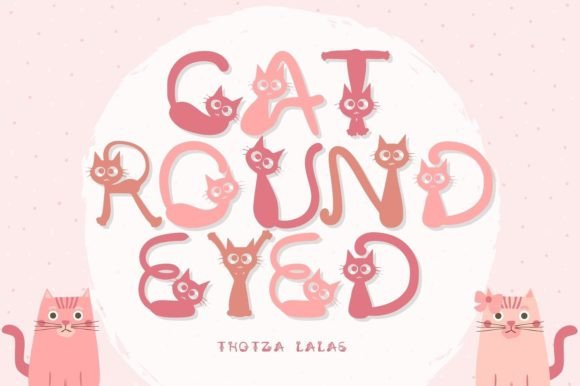
Welcome to the world of Cat Round Eyed Font – the Best Font For Cat Memes! This decorative font is a must-have for any cat lover who wants to add a touch of cuteness and fanciness to their projects. Created by NN-Font Store, this adorable font is the perfect choice for various purposes, from invitation embellishments to wall art and beverage logos.
Cat Round Eyed Font is a versatile decorative font that can easily elevate any project. Its fancy and cute design will make your work stand out and capture the attention of your audience. This font is perfect for creating memorable and eye-catching designs that will leave a lasting impression.
Whether you are a designer, artist, or simply a cat lover, Cat Round Eyed Font is the perfect choice for you. Its unique and playful design will add a touch of personality and charm to your projects. You can use it to create seamless patterns, social media posts, greeting cards, product packaging, and much more.
With its adorable and versatile design, Cat Round Eyed Font is the perfect choice for creating cat-themed projects. It is the best font for cat memes, making it the perfect choice for social media posts and viral content. With its eye-catching design, you can easily create fun and engaging content that will capture the hearts of cat lovers everywhere.
In conclusion, if you are looking for a decorative font that is both adorable and versatile, look no further than Cat Round Eyed Font. Created by NN-Font Store, this font is the perfect choice for any cat lover who wants to add a touch of cuteness and fanciness to their projects. So why wait? Download Cat Round Eyed Font today and start creating memorable and eye-catching designs that will leave a lasting impression!